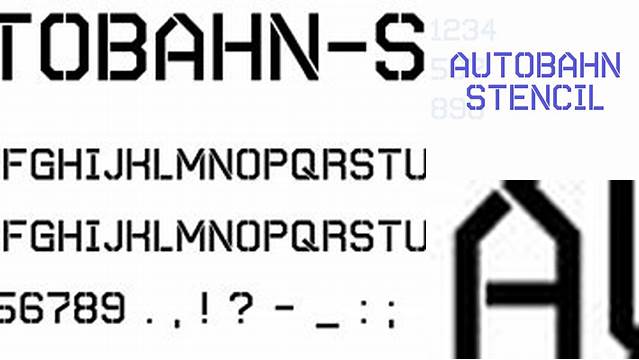
Free Autobahn Stencil Font: Download Options For Designers
Are you looking to infuse a bold, industrial, and modern aesthetic into your design projects? The Autobahn stencil font might just be the perfect solution. This distinctive typeface, reminiscent of classic road signage and industrial typography, has gained popularity for its clean lines and impactful presence. In this comprehensive guide, we'll delve into the world of Autobahn stencil fonts, explore their characteristics, discuss their applications, and most importantly, guide you towards finding free options to elevate your designs. So, buckle up, guys, and let's embark on this typographic journey together!
What is Autobahn Stencil Font?
Before we dive into the specifics of finding free options, let's first understand what exactly the Autobahn stencil font is. This typeface is characterized by its bold, sans-serif construction with distinct stencil cuts. These stencil cuts, which create gaps in the letterforms, are not merely aesthetic; they hark back to the practicalities of stencil-based lettering used in industrial settings, such as marking crates, equipment, and, of course, road signs. The Autobahn stencil font embodies a sense of utilitarianism and straightforwardness, making it ideal for projects that require a strong and easily legible typeface. Its clean lines and geometric shapes contribute to a contemporary feel, ensuring that it remains relevant in modern design contexts.
The appeal of the Autobahn stencil font lies in its ability to convey a sense of authority and clarity. The bold strokes command attention, while the stencil cuts add a touch of ruggedness and authenticity. This combination makes it a versatile choice for various applications, ranging from branding and advertising to signage and editorial design. Its inherent legibility ensures that it performs well in both print and digital environments, making it a reliable option for designers seeking a typeface that is both visually striking and functionally sound. The distinct stencil design also adds a unique visual element that sets it apart from standard sans-serif fonts, injecting personality and character into any project.
Key Characteristics of Autobahn Stencil Fonts
- Bold Sans-Serif Construction: The foundation of the Autobahn stencil font is its bold, sans-serif nature. This means it lacks the small decorative strokes (serifs) found at the ends of letters in serif fonts. The absence of serifs gives it a clean and modern appearance, enhancing legibility, especially in headlines and short bursts of text. The boldness of the strokes ensures that the text stands out, making it ideal for grabbing attention.
- Stencil Cuts: The defining feature of this font is, of course, the stencil cuts. These gaps in the letterforms are strategically placed to maintain the overall shape and legibility of the letters while adding a distinctive visual element. The stencil cuts evoke a sense of industrial heritage, reminiscent of the practicalities of stencil-based lettering. They also create a visual rhythm and texture that adds depth to the typography.
- Geometric Shapes: Many Autobahn stencil fonts incorporate geometric shapes into their letterforms. This contributes to the font's clean and contemporary feel. The use of precise angles and straight lines creates a sense of order and efficiency, aligning with the utilitarian aesthetic of the typeface. This geometric precision also enhances legibility, ensuring that the letters are easily distinguishable from one another.
- High Legibility: Despite the stencil cuts, Autobahn stencil fonts are designed to maintain high legibility. The cuts are carefully placed to avoid disrupting the fundamental shapes of the letters. This ensures that the text remains readable, even at smaller sizes. Legibility is a crucial factor in any typeface, and the Autobahn stencil font excels in this regard, making it a practical choice for a wide range of applications.
- Industrial Aesthetic: The overall aesthetic of the Autobahn stencil font is decidedly industrial. It evokes images of factories, warehouses, and road signs. This makes it a fitting choice for projects that aim to convey a sense of strength, durability, and functionality. The industrial aesthetic also lends a touch of vintage charm, harking back to the era of manual stencil lettering.
Where to Use Autobahn Stencil Fonts
The versatility of the Autobahn stencil font makes it suitable for a wide array of design projects. Its bold and impactful nature makes it particularly well-suited for headlines, signage, and branding materials. Let's explore some specific applications where this font can shine:
Branding and Logos
Autobahn stencil fonts are excellent for creating memorable logos and brand identities. The font's strong visual presence helps a brand stand out and convey a sense of robustness and reliability. It works particularly well for brands in industries such as manufacturing, construction, and technology. The stencil cuts add a unique touch that differentiates a brand from its competitors.
For logos, the Autobahn stencil font can be used to create a sense of strength and stability. The bold letterforms command attention, while the stencil details add a layer of visual interest. This combination makes the logo both eye-catching and memorable. In branding materials, such as business cards and letterheads, the font can be used to reinforce the brand's identity and create a cohesive visual experience.
Headlines and Titles
When it comes to headlines and titles, the Autobahn stencil font is a natural choice. Its bold letterforms and high legibility make it perfect for grabbing the reader's attention. Whether it's a website headline, a poster title, or a magazine cover, this font can make a statement. The stencil cuts add a touch of edginess and modernity, making it a compelling option for contemporary designs.